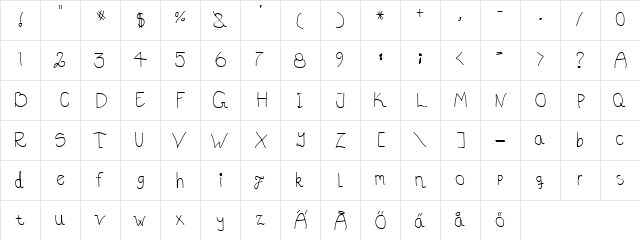
Speedfont Regular
Design Context for Speedfont Typeface
Speedfont is a composed and adaptable typeface that performs quietly and consistently across a wide range of design contexts.
Pro Tip: Pair Speedfont with a font of contrasting weight or personality to build a more expressive typographic hierarchy.